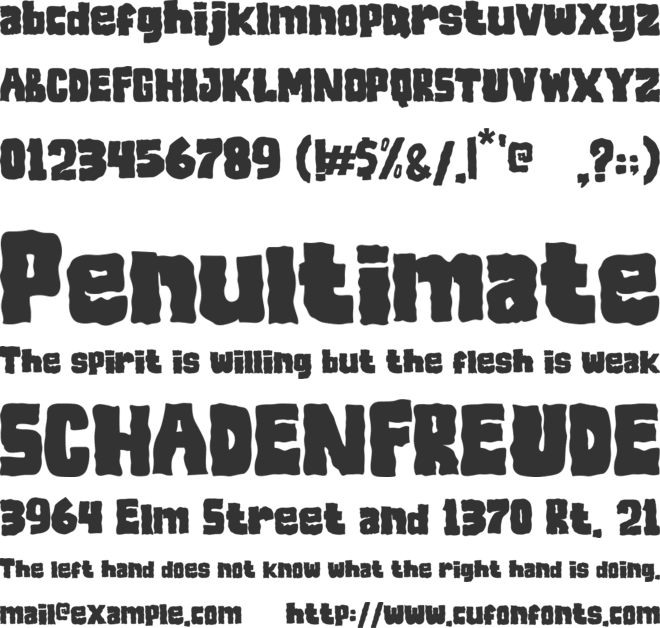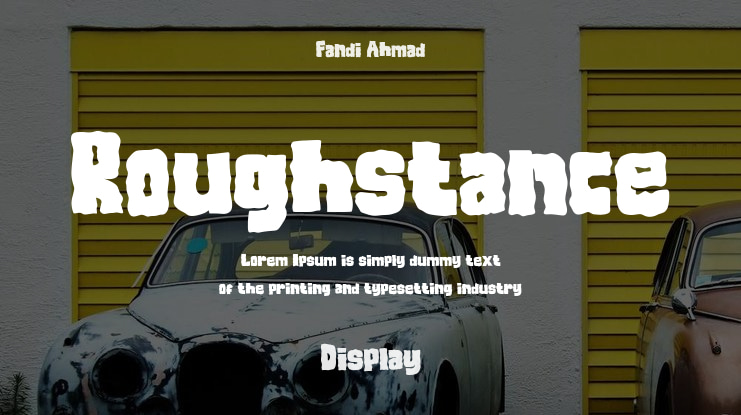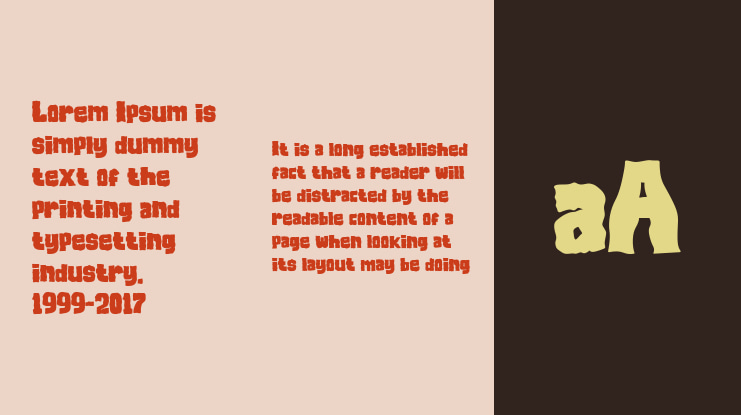
Roughstance Font
Roughstance Bold is a powerful display typeface that commands attention with its strong presence and vintage charm. Its bold weight and slightly rugged texture give it a timeless feel — perfect for designs that aim to capture both strength and character. Each letter carries a handcrafted touch, making it ideal for projects that need an authentic and confident look.
The font’s subtle wave-like curves add a dynamic rhythm to its form, giving headlines and titles a sense of motion and personality. This unique flow distinguishes Roughstance Bold from typical block-style fonts, making it a great choice for creative branding, posters, logos, and packaging that need to stand out.
Whether used in digital designs or printed materials, Roughstance Bold adapts seamlessly to various contexts. Its balance of boldness and vintage imperfection brings a human warmth to modern layouts, ensuring your message leaves a strong and memorable impression every time.